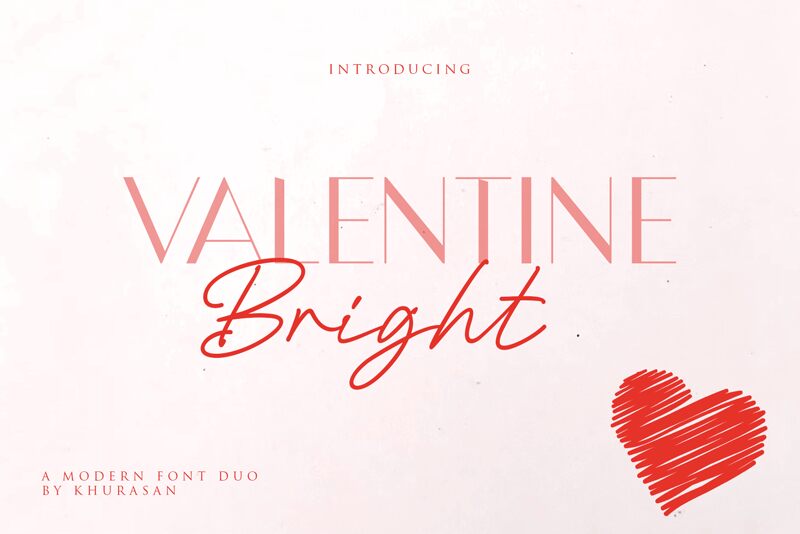
Valentine Bright Script font family is a modern handwritten free font family by Khurasan. Featuring 2 font styles where each is unique in its own style and character strokes, this font pack offers different looks in its elegant handwritten style. The letters connect seamlessly together in a clean, neat style contrasting sharply yet professionally with an alternate stylistic set that looks as elegant and stylish.
Although suitable for multiple purposes, Valentine Bright instantly makes it possible for you to design contemporary applications in limitless fields. Pair the typeface with stylish logos, business cards, advertising materials, book covers, posters, T-shirt designs, coffee cups, product labels, and more.